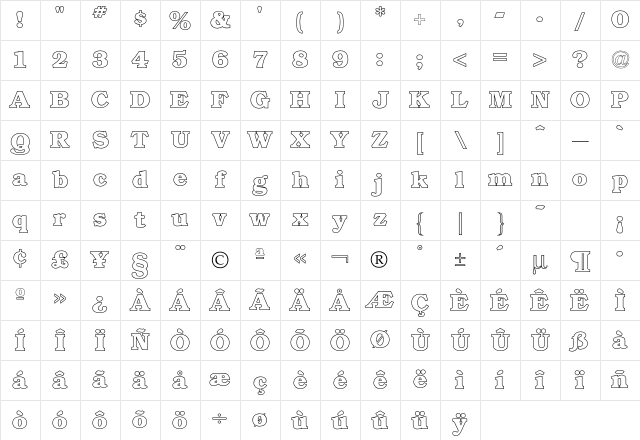
Bookman Outline
Style: Outline
Design Context for Bookman
Bookman is built around its visual character rather than neutral utility - its distinctive forms are designed to make an impression at display sizes.
Font Pairing: Pair with a clean neutral sans-serif for body copy to let Bookman's character lead without overwhelming the composition.
Pro Tip: Use Bookman exclusively at display sizes - it was designed to be seen, not read at length. Let a neutral companion handle body copy.